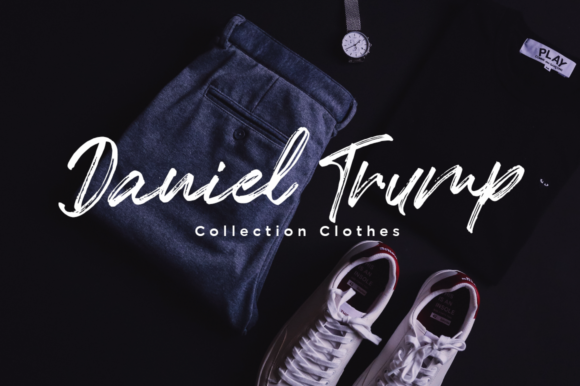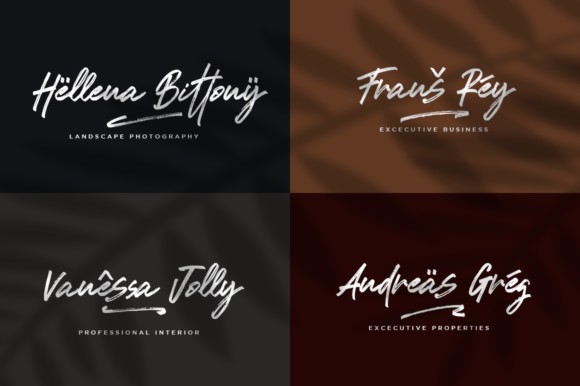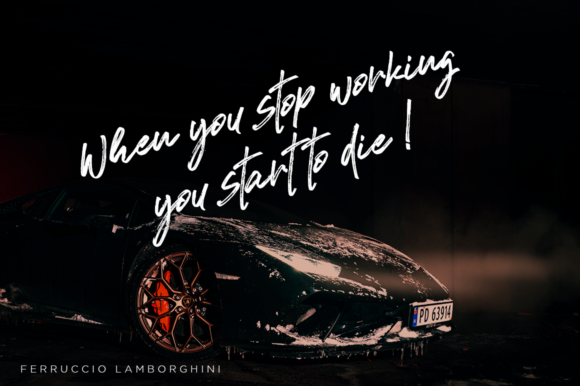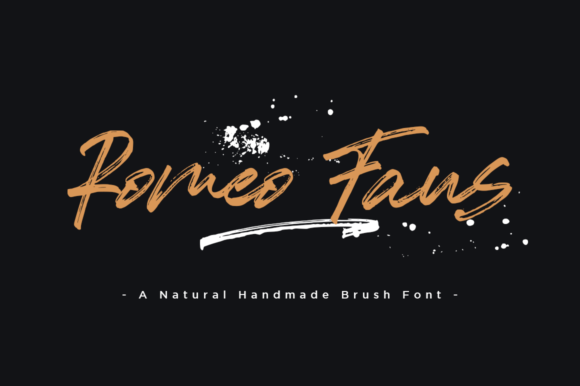
Introduction to Romeo Fans Font
Romeo Fans is a natural brush script with handwritten texture and appearance.
Get inspired by its exciting look & feel .
Key Features of Romeo Fans Font
Why Choose Romeo Fans Font?
Romeo Fans Font offers exceptional quality and versatility, making it a valuable addition to your design toolkit. Whether you’re creating for personal projects or commercial use, Romeo Fans Font delivers professional results.